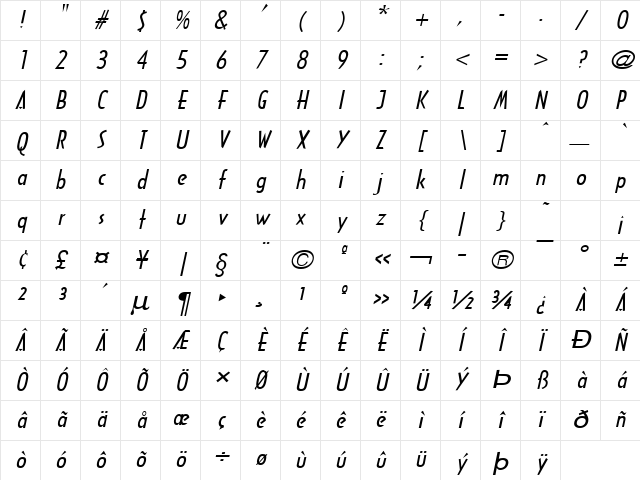
Tech-Wide Italic
Design Context for Tech-Wide
Tech-Wide has a distinctly futuristic character, with geometric precision and clean angles that feel at home in technology, gaming, and sci-fi contexts. The slanted form adds forward momentum and visual energy.
Pro Tip: Try Tech-Wide with generous letter-spacing in UI labels and navigation - the geometric forms benefit from room to breathe.